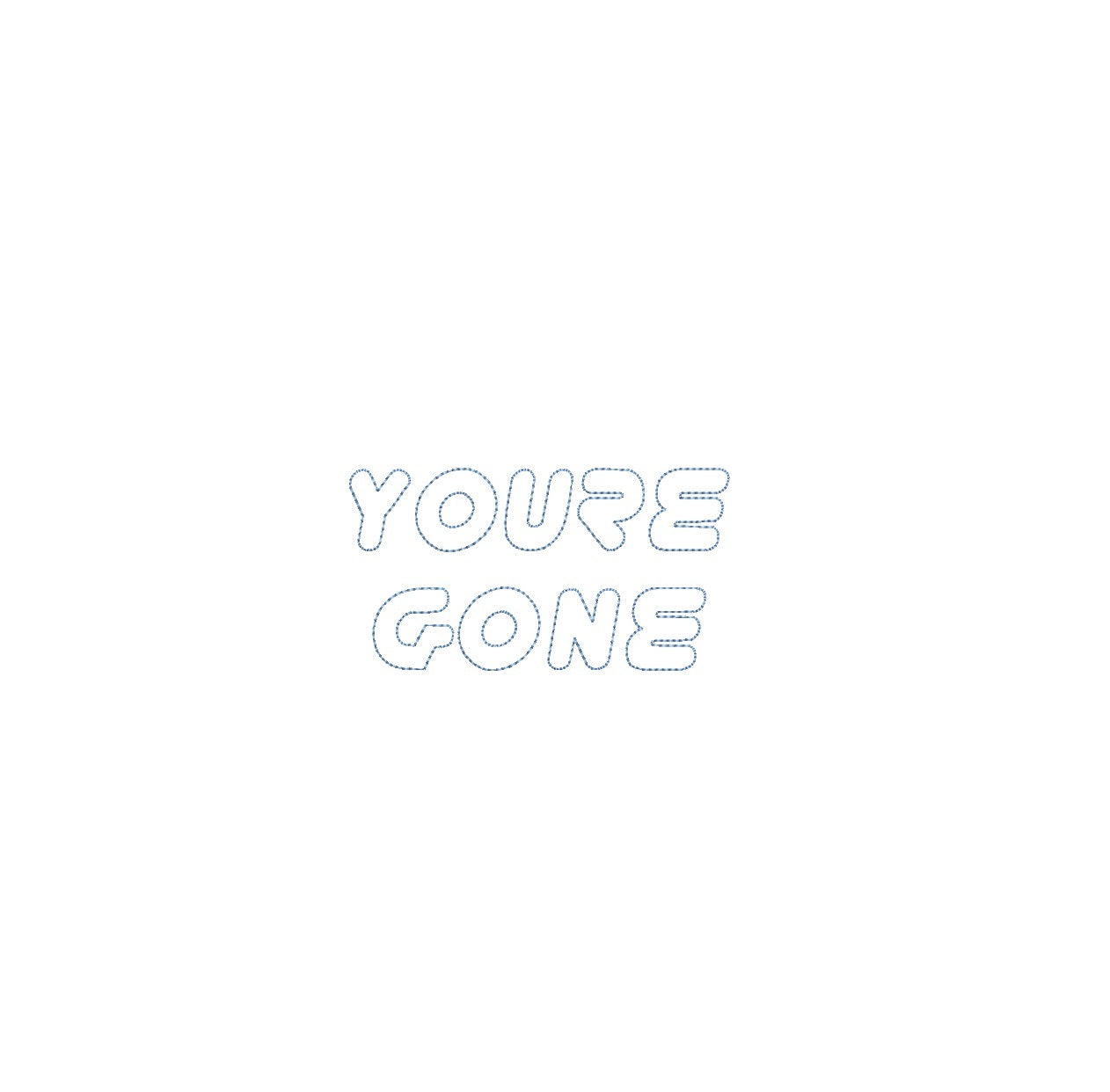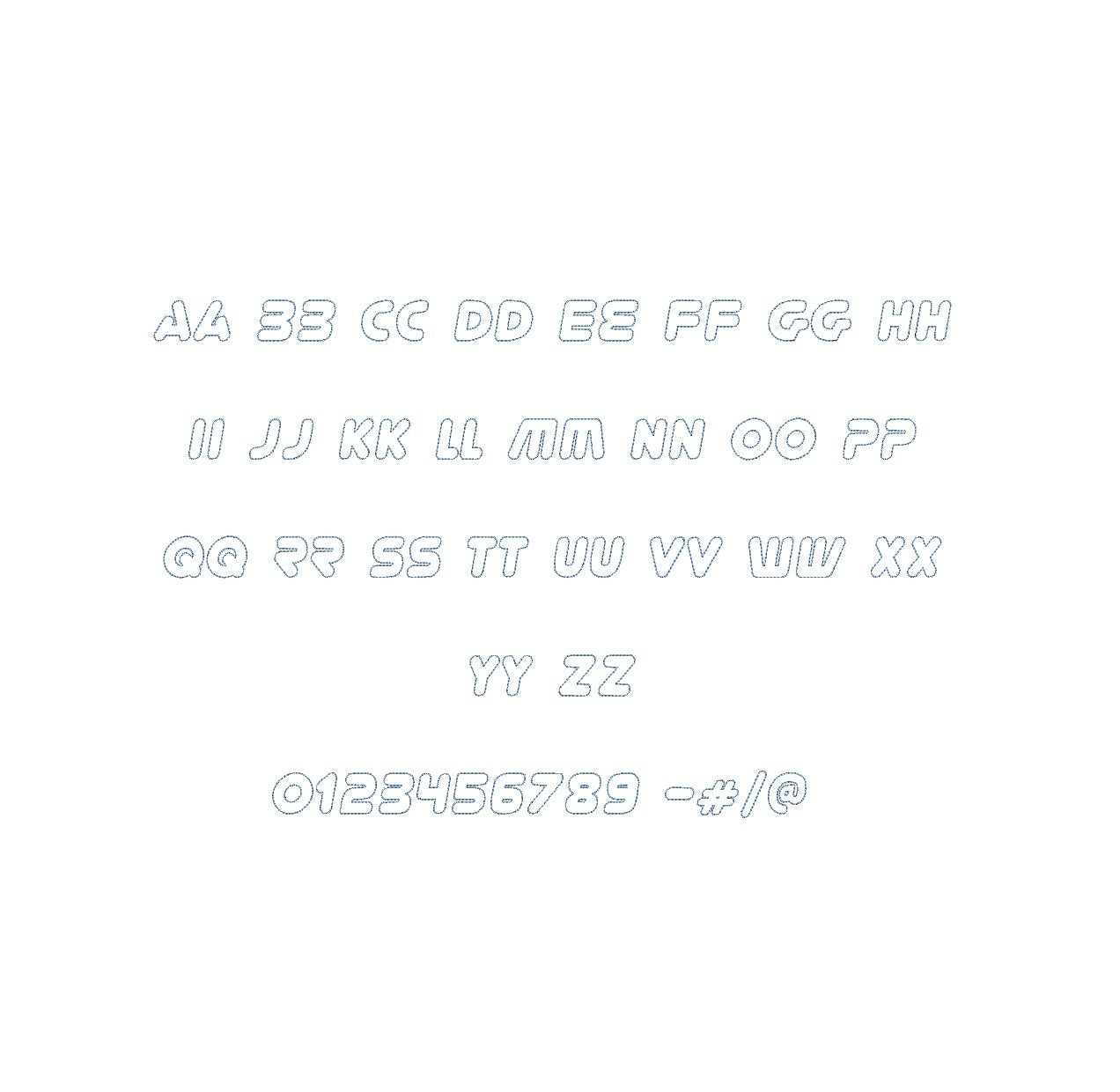
Elevate your embroidery projects with the You're Gone Bean Outline ESA font, compatible with Wilcom Studio e4.5.6 and Hatch 3 versions and up. This font seamlessly blends emotion and precision, infusing your designs with a unique aesthetic perfect for heartfelt monograms and embellishments. Experience seamless compatibility for exceptional results and unleash a new level of stitching finesse. Transform your creations into embroidery masterpieces that convey sentiment and creativity. Elevate your projects with the You're Gone Bean Outline ESA font and make your embroidery truly touching and unforgettable.